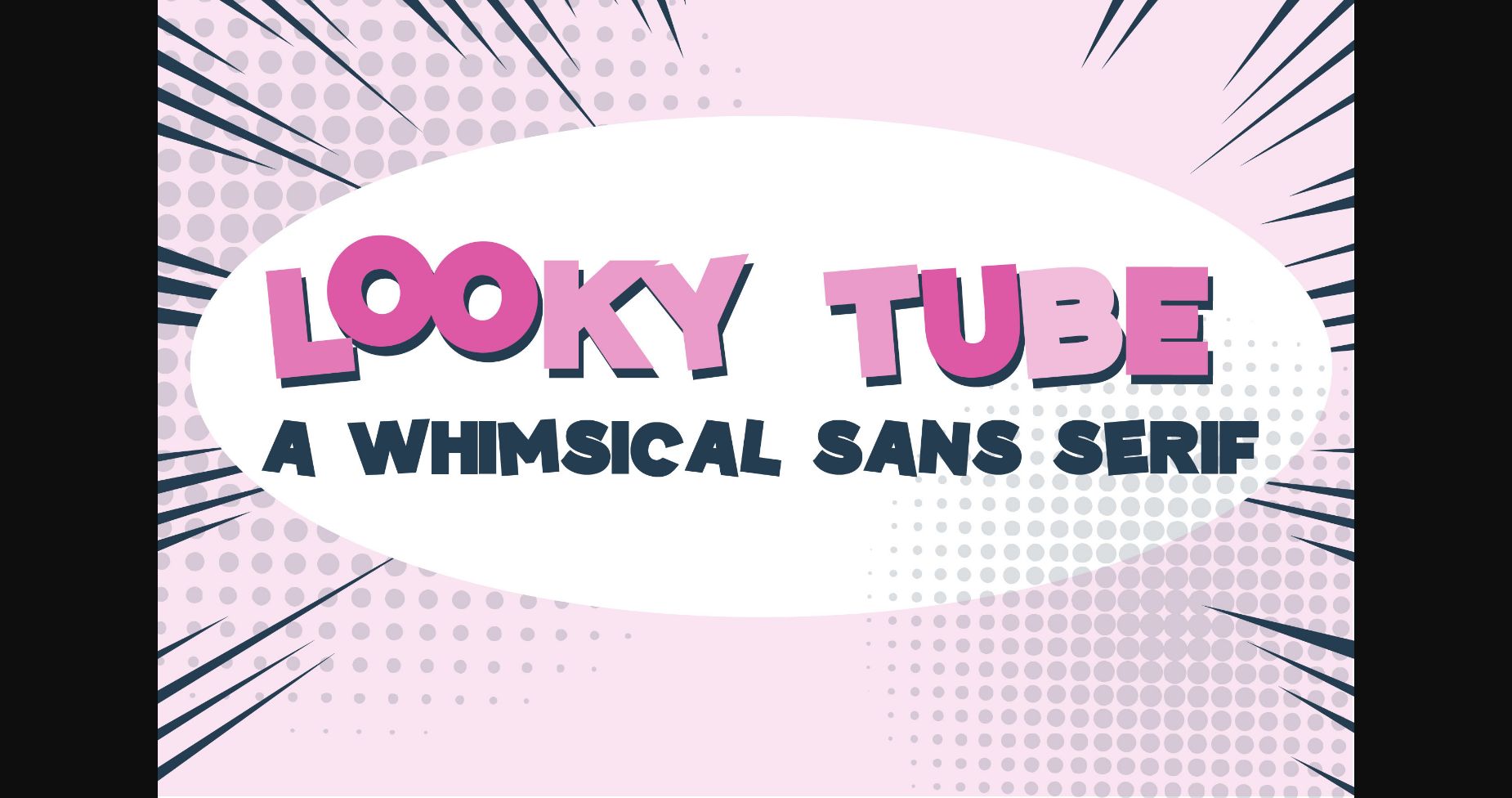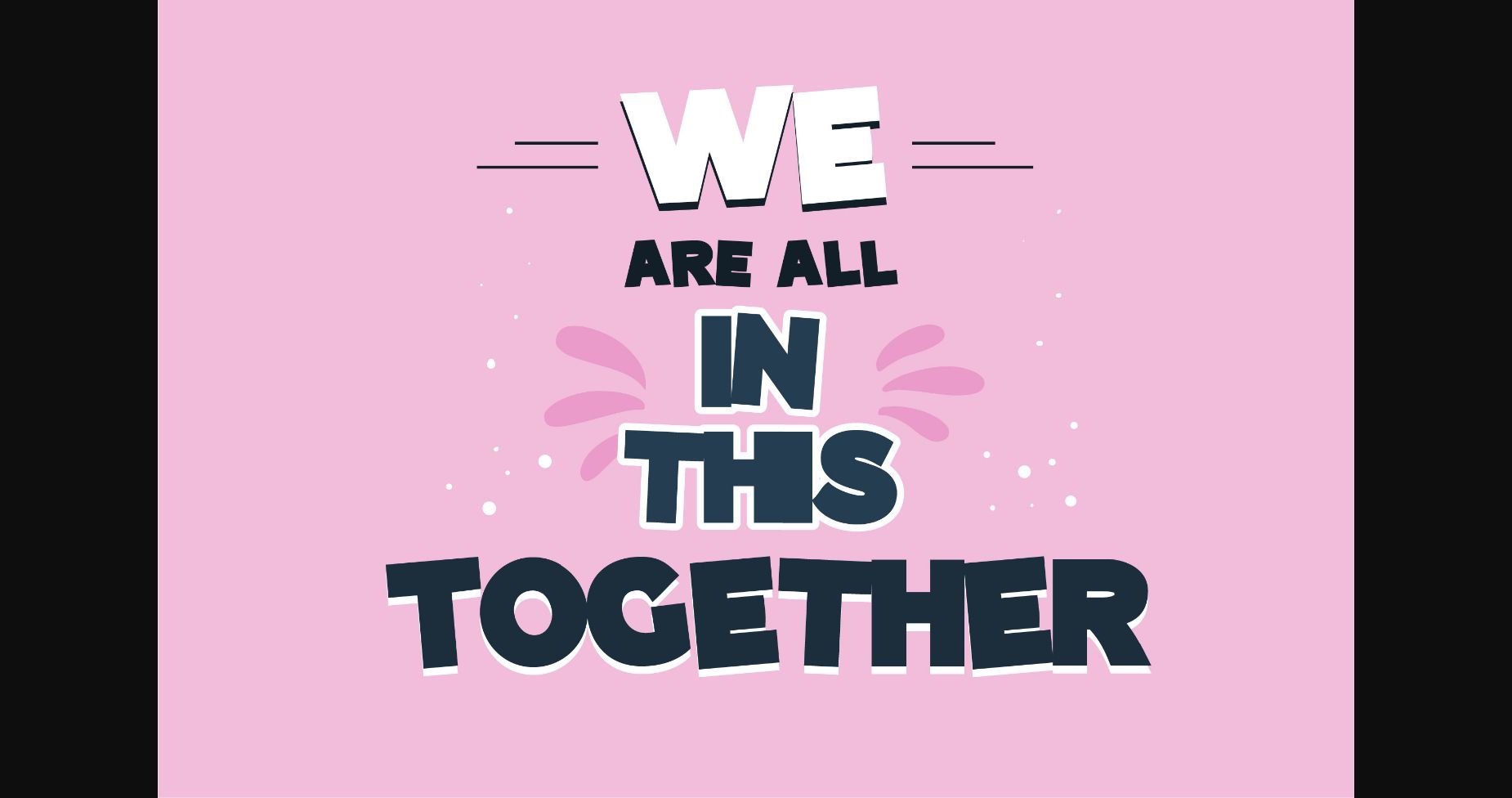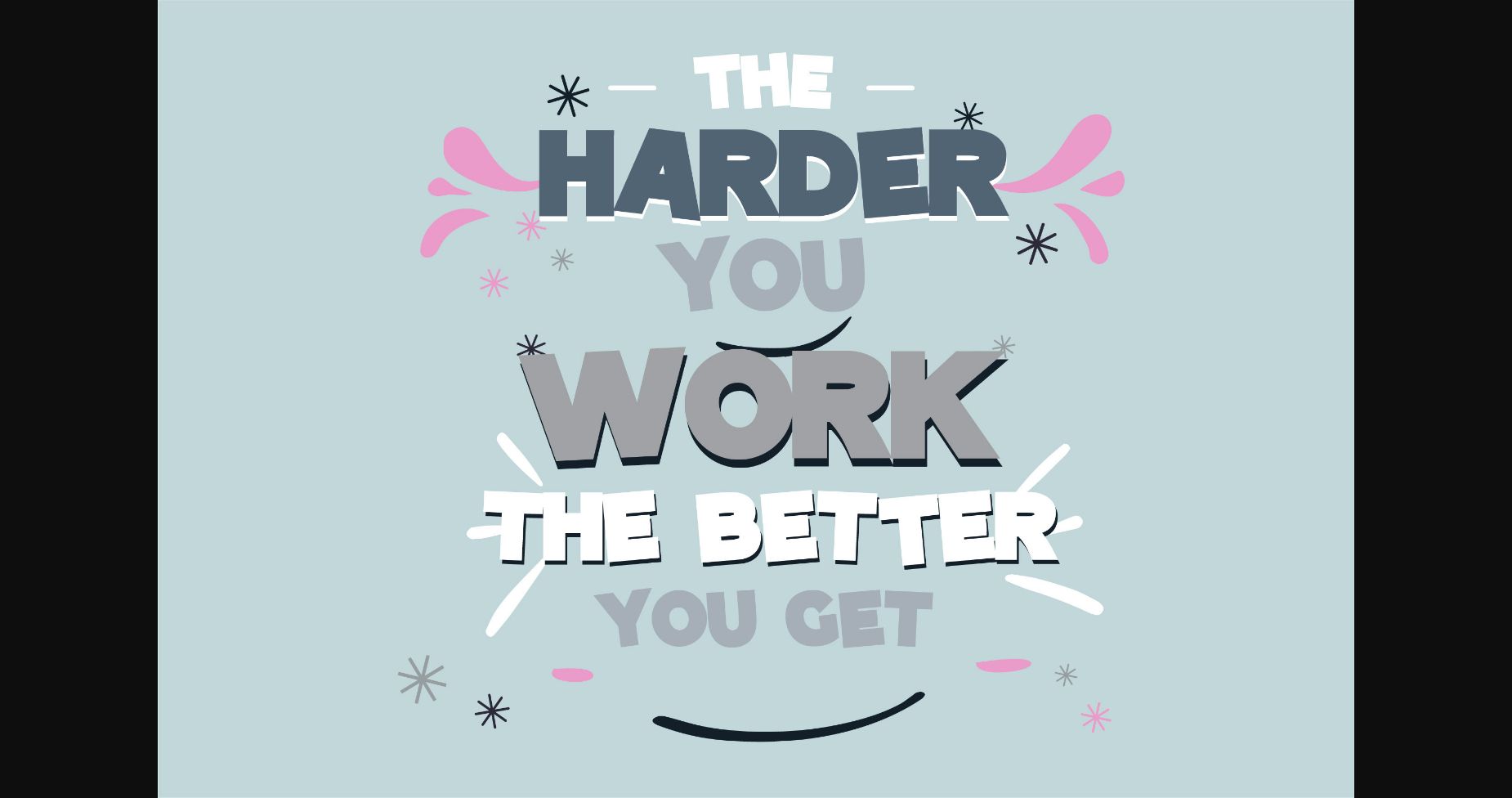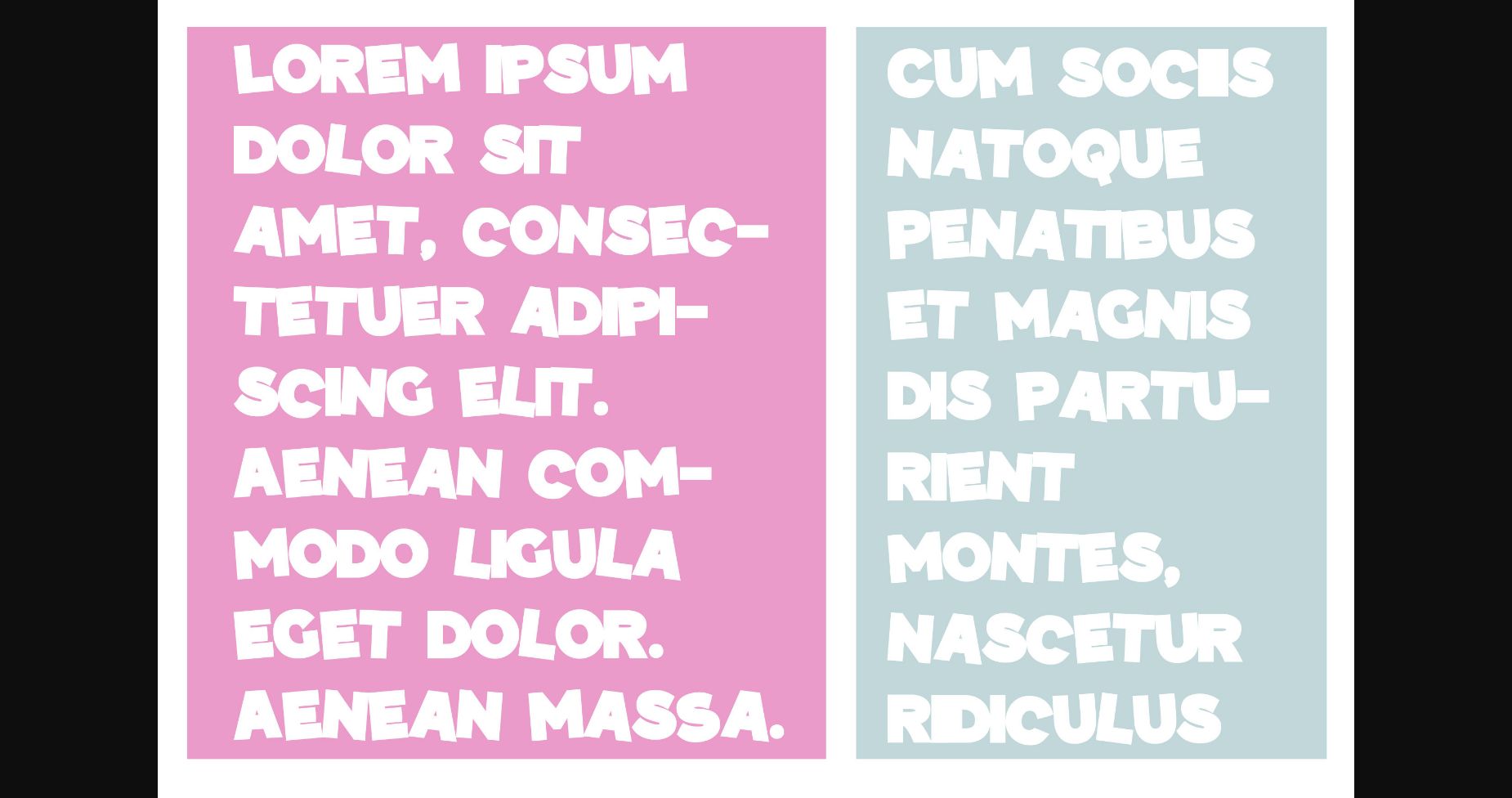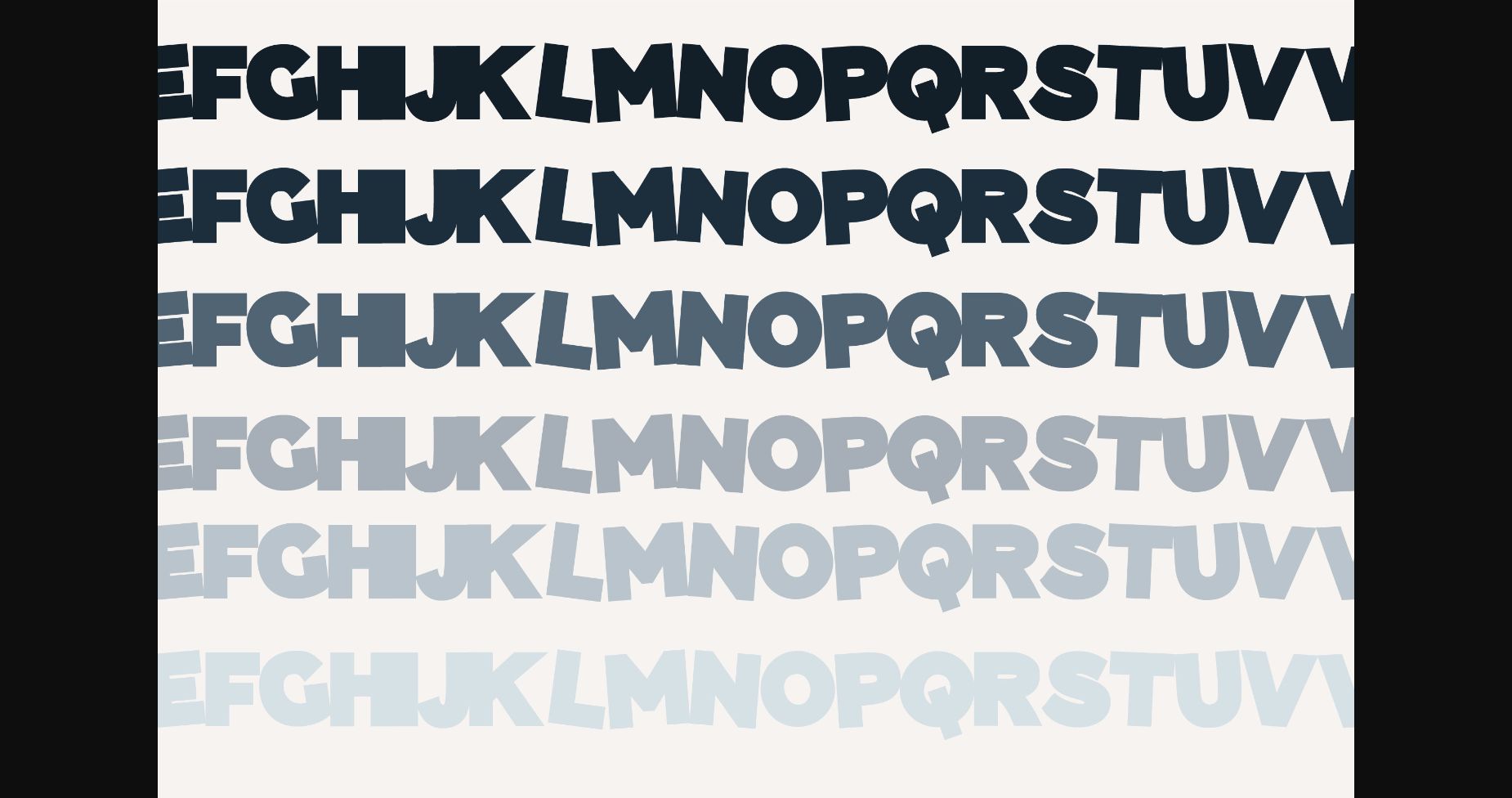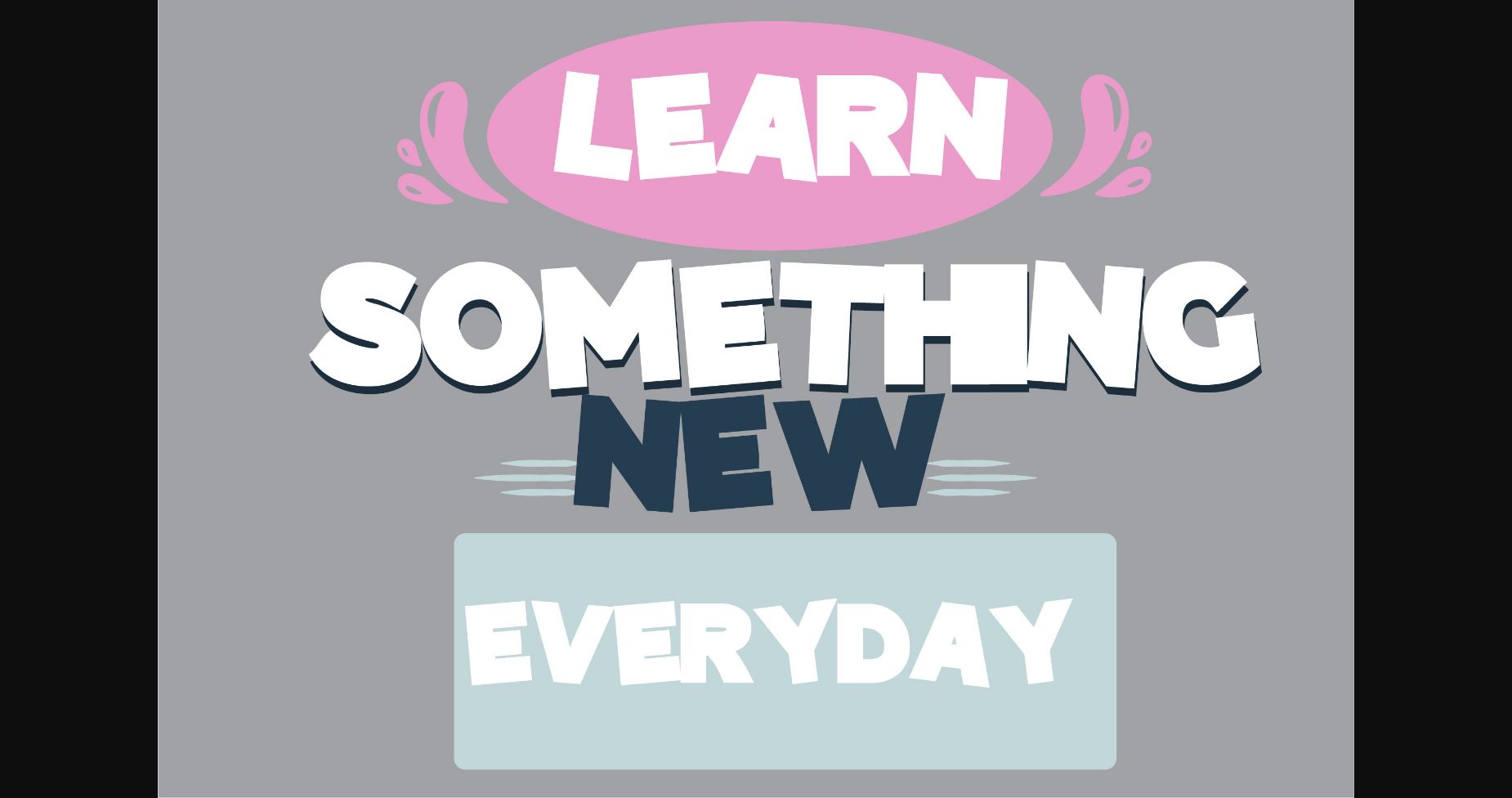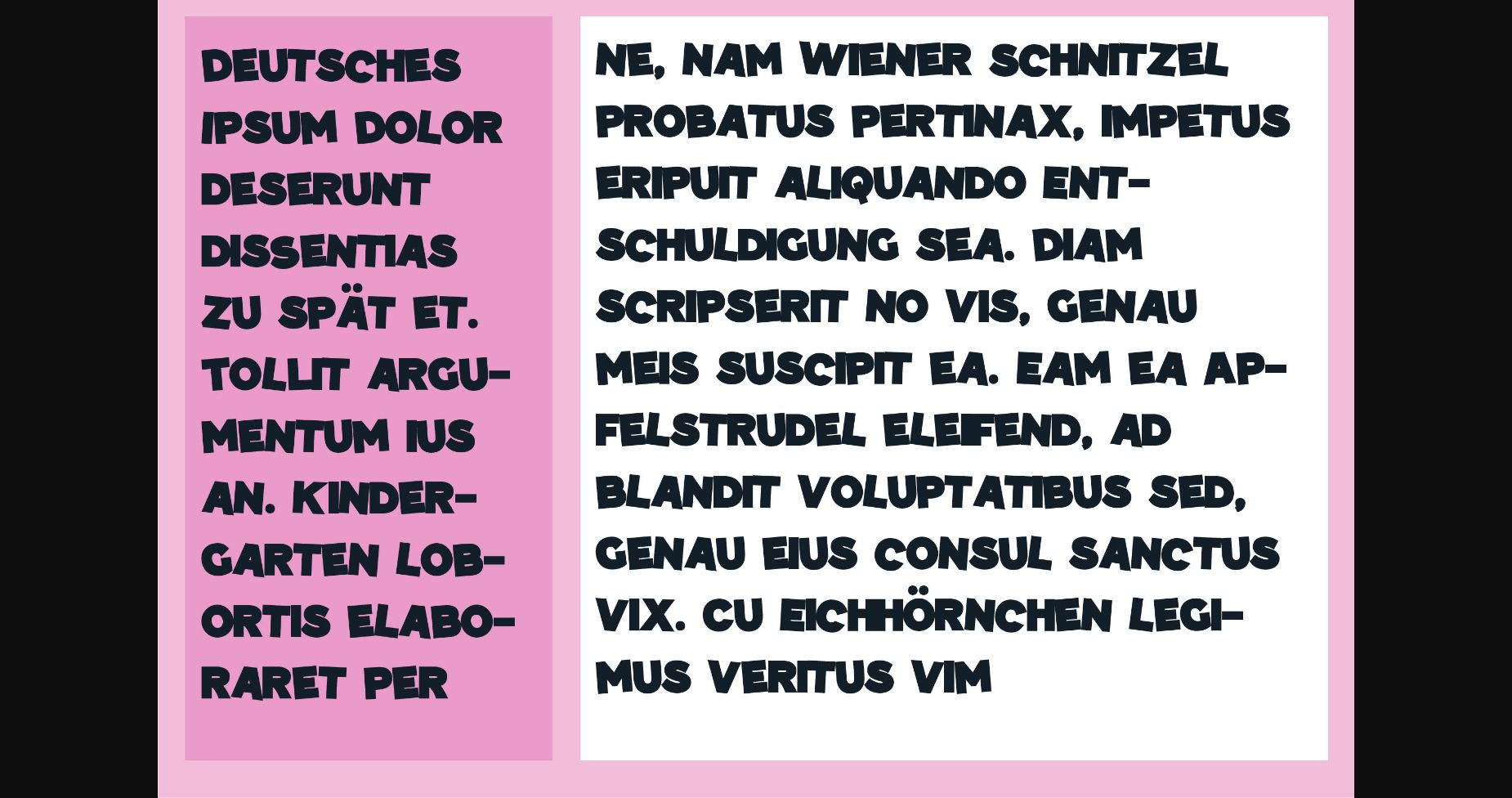
Looky Tube Font
About Looky Tube Font
This blocky sans serif has toggled lettering throughout with a few ligatures. It looks fresh, modern, and perfect for almost any crafty idea!